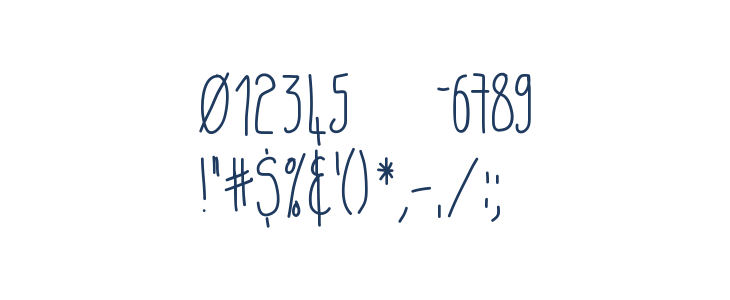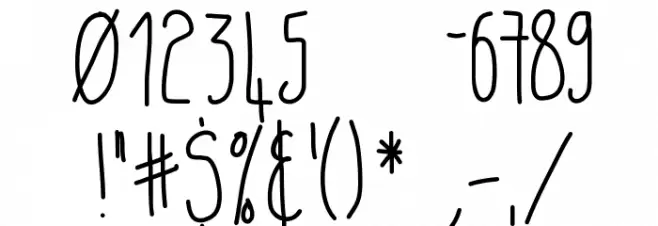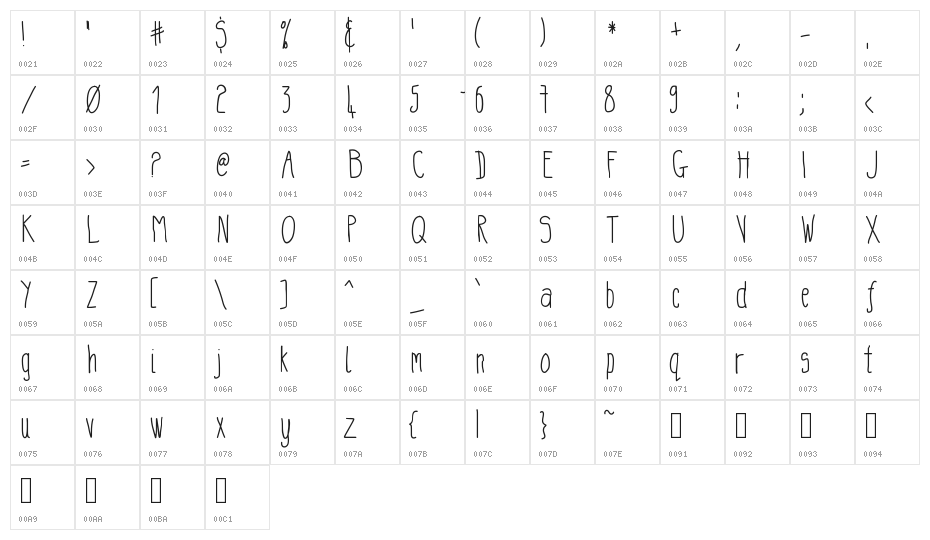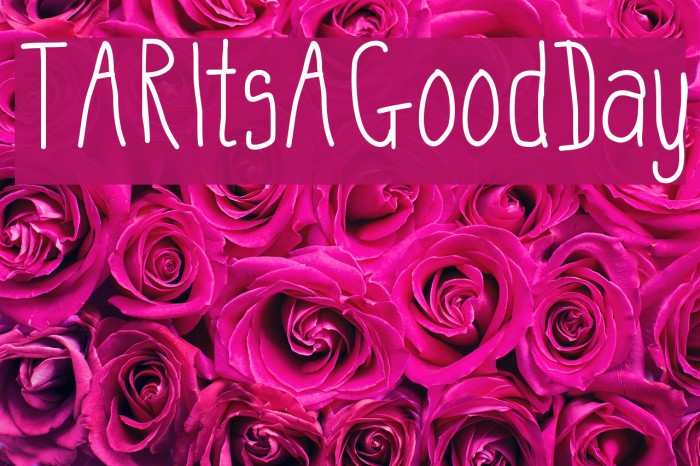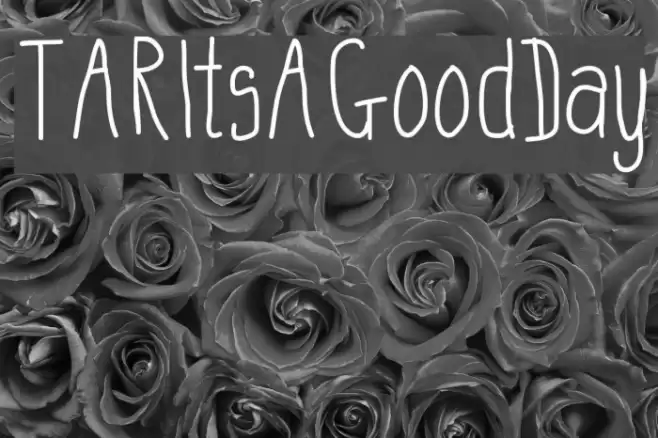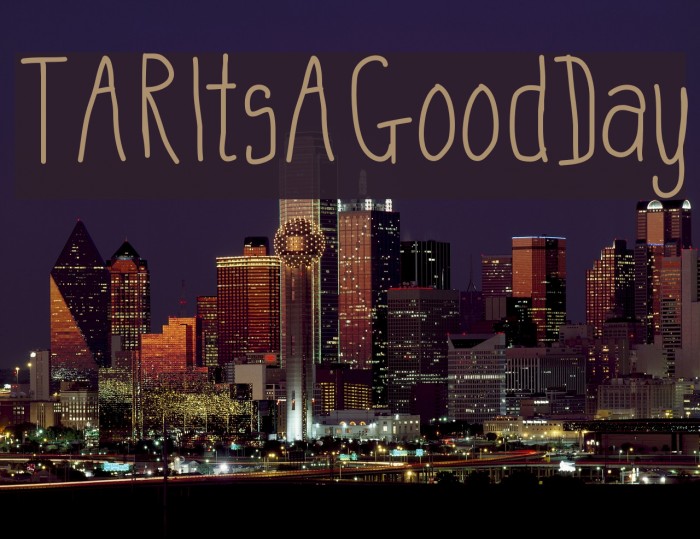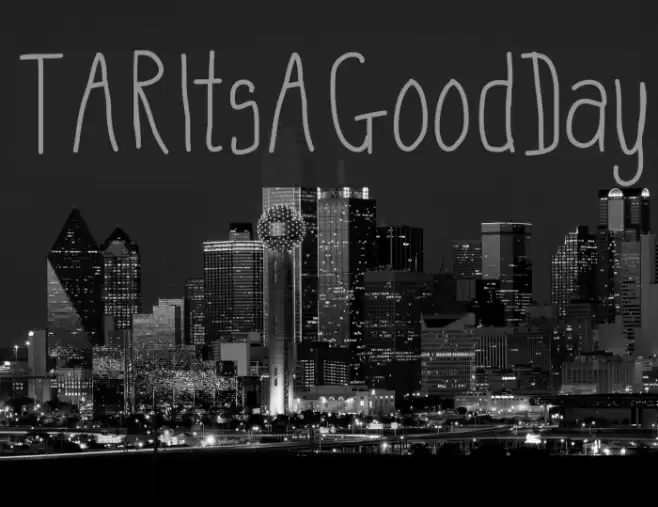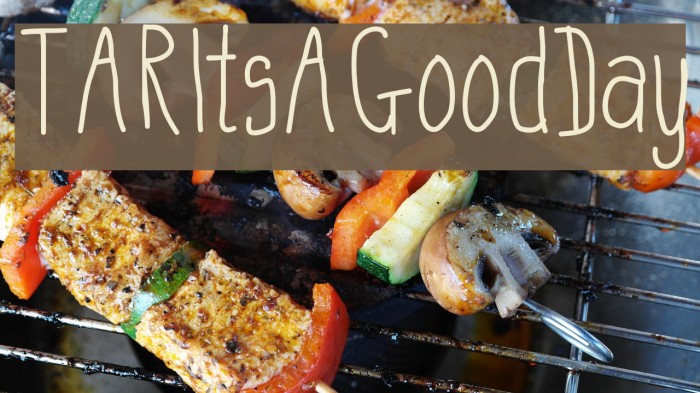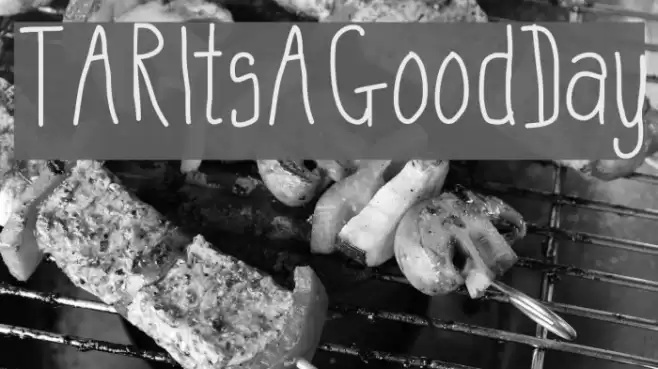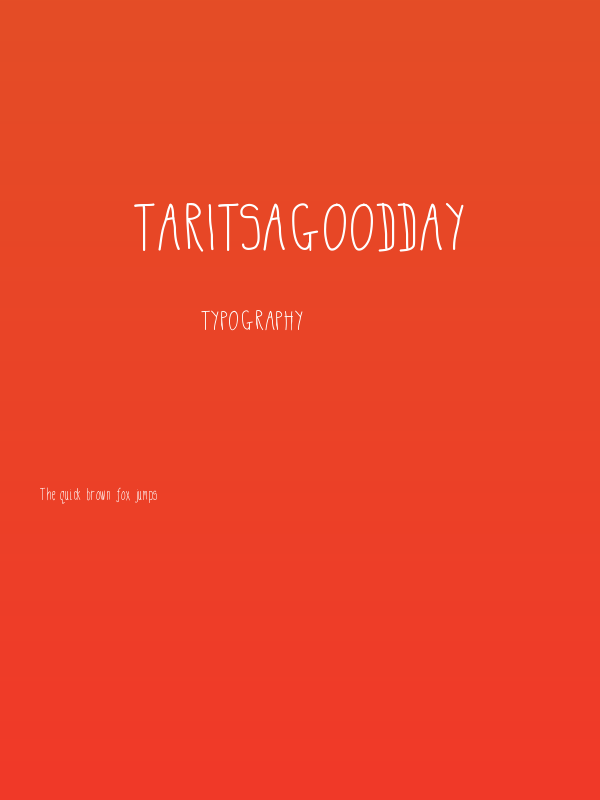
TARItsAGoodDay Font
TARItsAGoodDay Description
This font features a playful, handwritten style with tall, narrow letters that convey a casual and friendly tone. The characters have a consistent stroke width, giving it a uniform appearance. The uppercase letters are slightly taller than the lowercase, maintaining a whimsical and approachable look. The numbers and special characters are designed to match the overall style, ensuring a cohesive appearance across all text. The font's informal nature makes it suitable for projects that require a personal touch or a relaxed vibe.
| Proposed Projects | Ideal for greeting cards, children's books, casual branding, and social media graphics. |